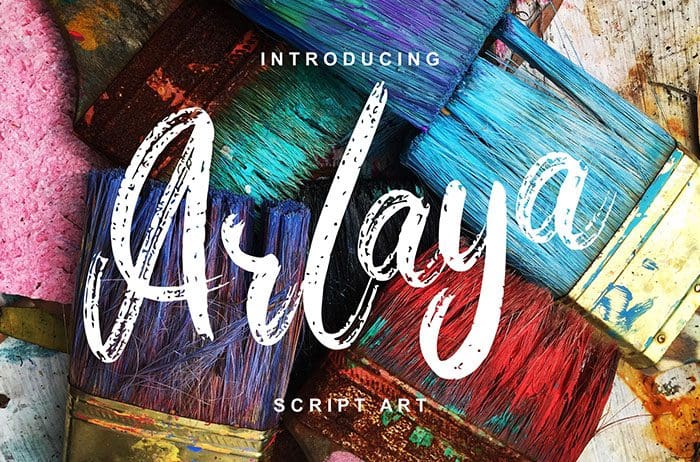
Arlaya Script Art Font
Arlaya Script Art Font updates classic brush with a modern twist. This dry brush font will turn any design idea into a true standout. Thanks to Vunira for sharing this font. This font free for personal use only, if you need commercial use and full version please download in here.